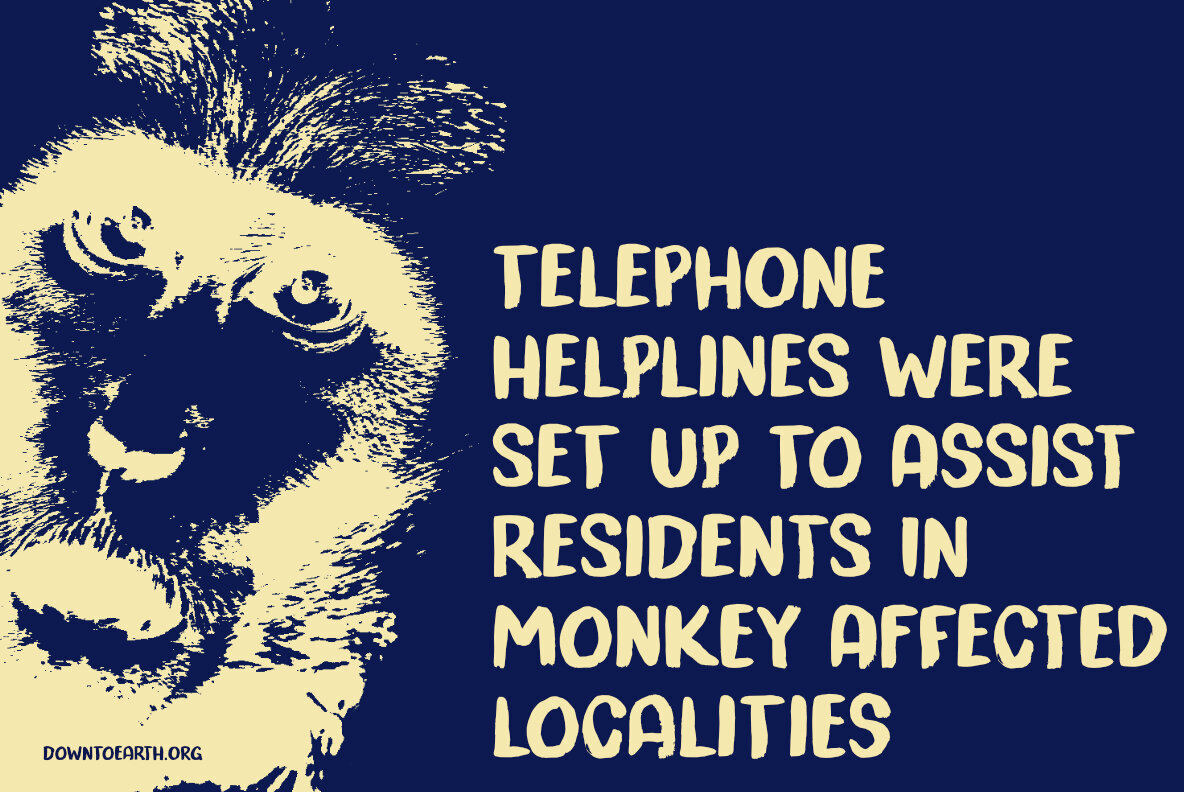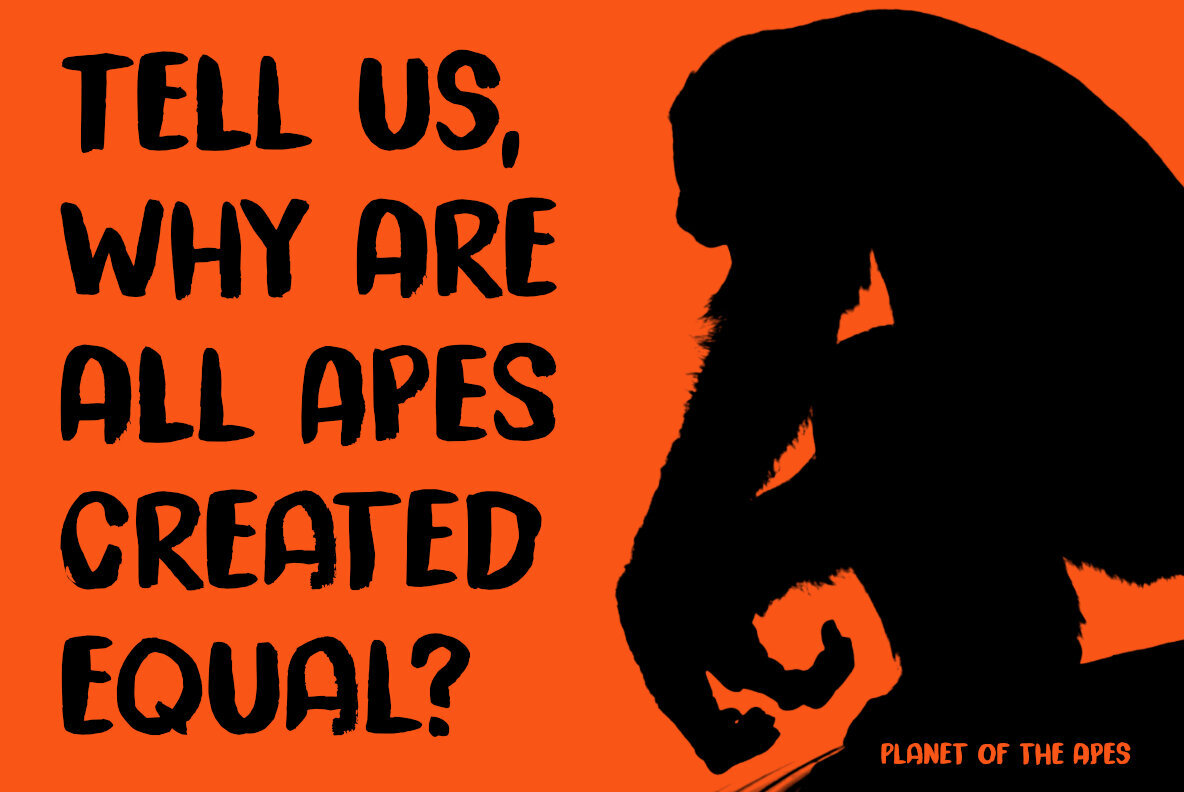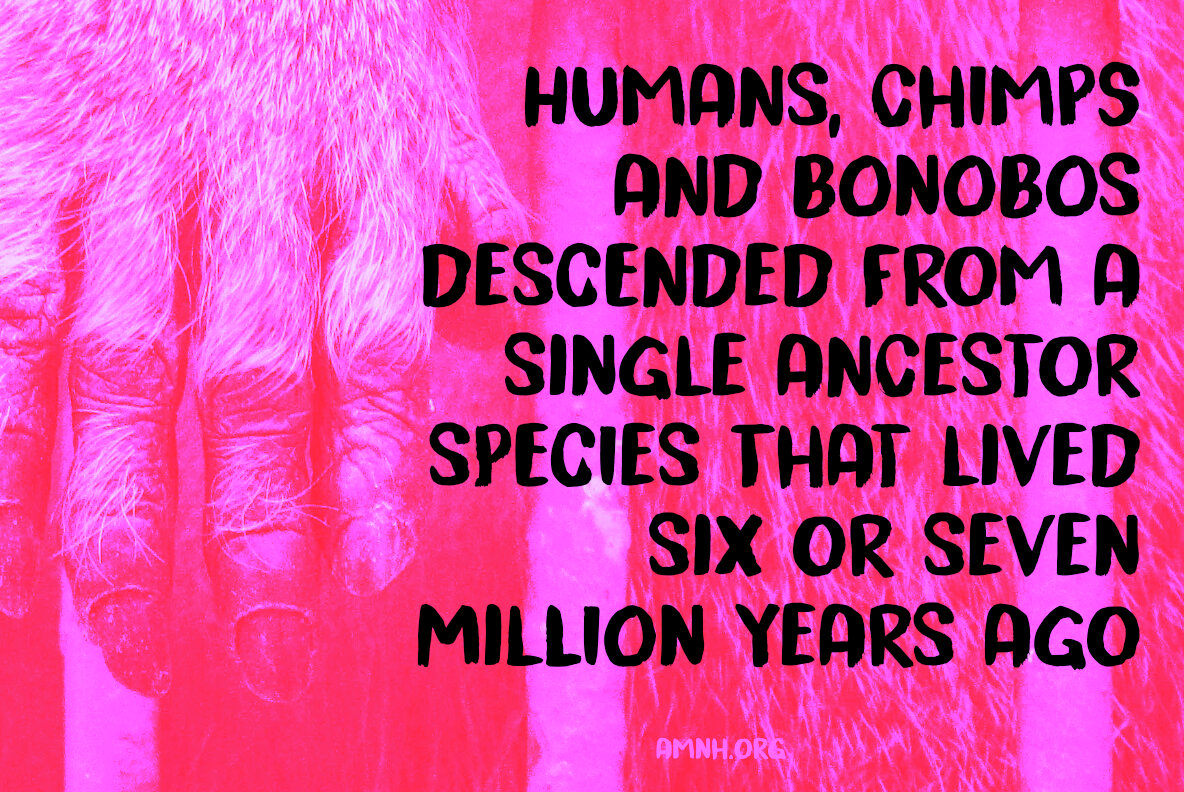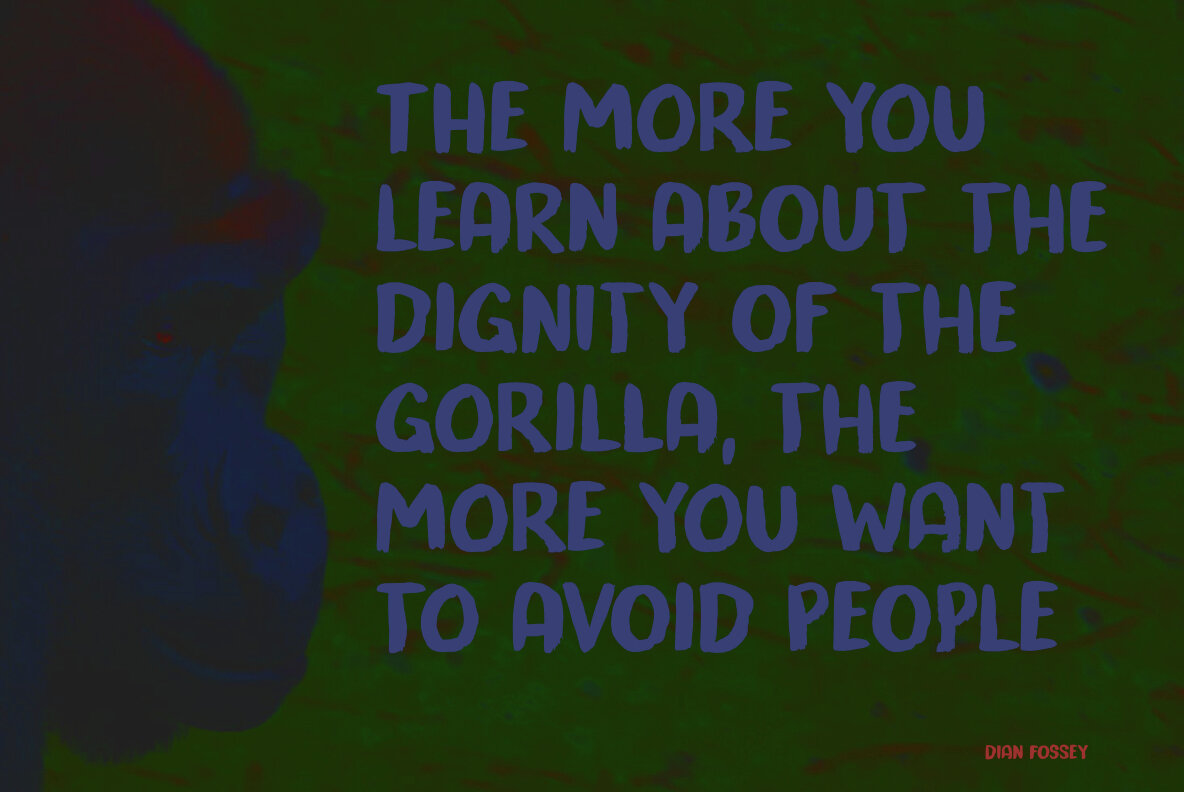
Trouble Monkey Font
Trouble Monkey is a striking all-caps headline font that demands attention. Designed with a brush and Chinese ink, this font embodies a bold, playful energy perfect for projects that need a standout typeface. Its vivid and expressive character makes it ideal for impactful headlines, posters, and creative designs.
Whether you're designing a captivating advertisement or a dynamic book cover, Trouble Monkey offers the perfect balance of uniqueness and readability. Without compromising on style, this font delivers an eye-catching effect that enhances engagement with your audience. Embrace the dynamic style of Trouble Monkey for any design seeking to make a memorable impression.